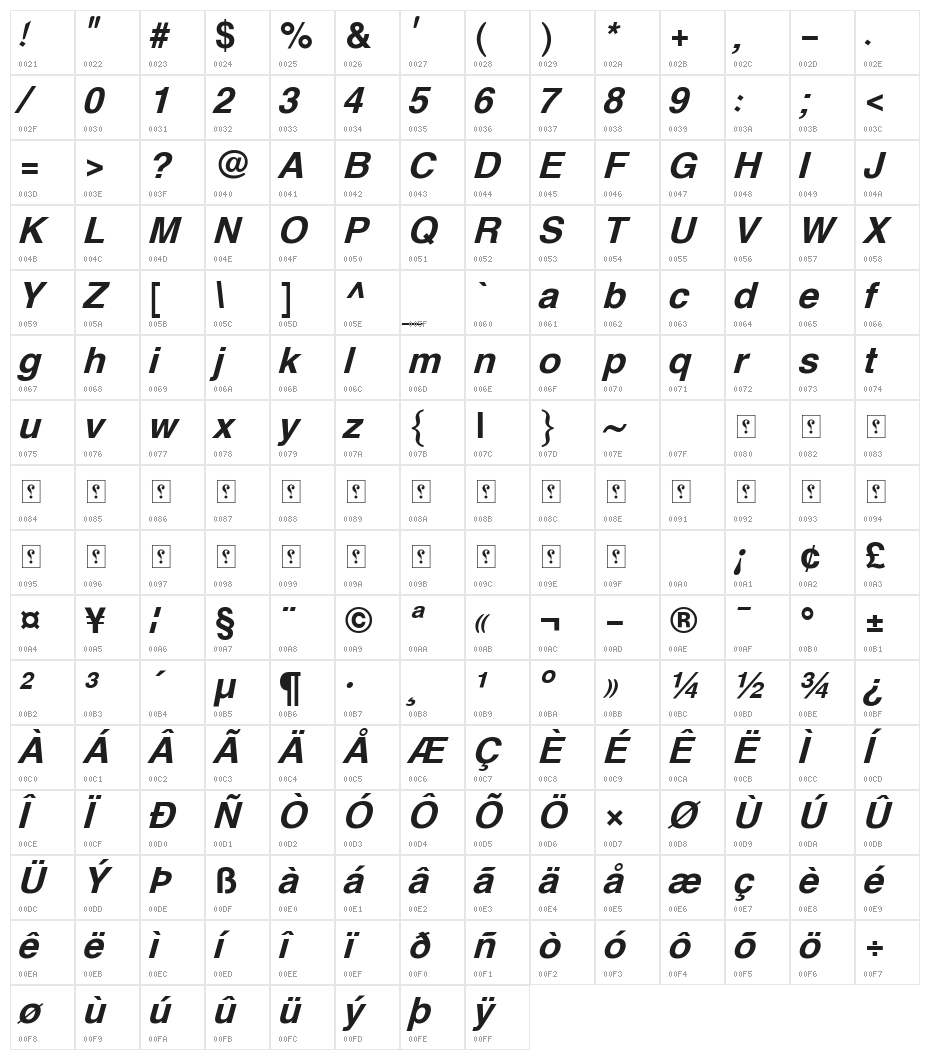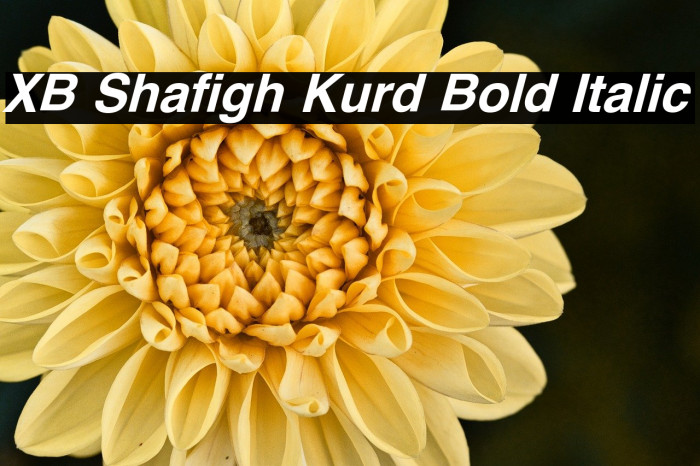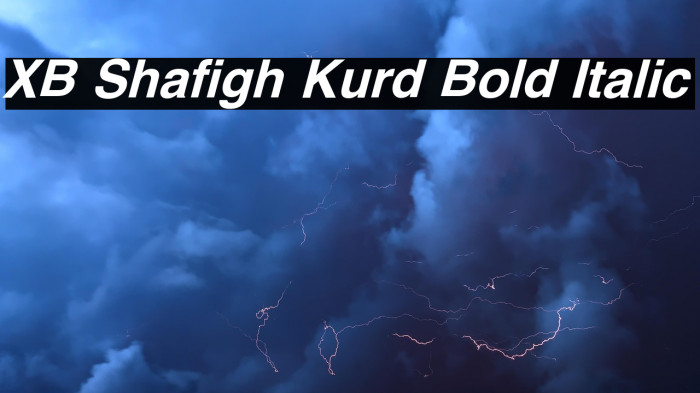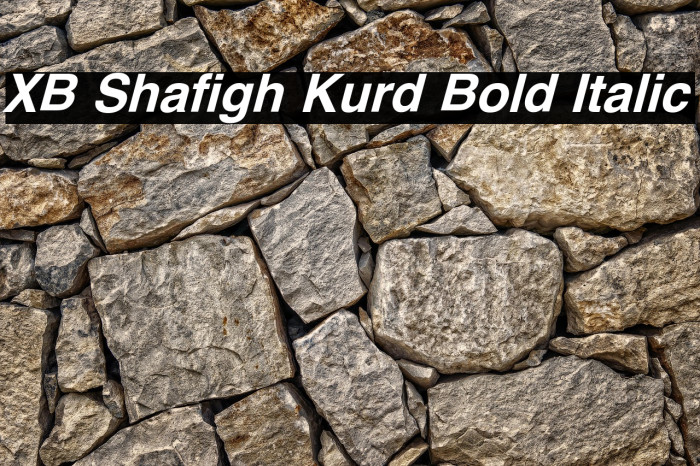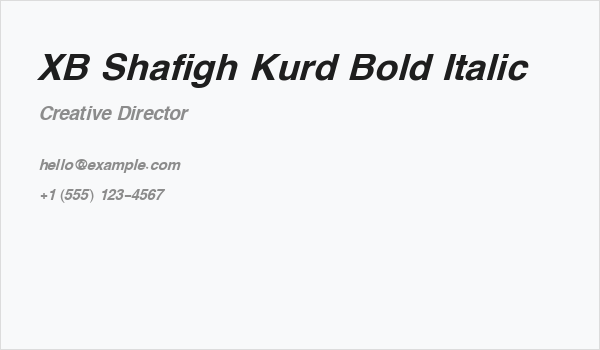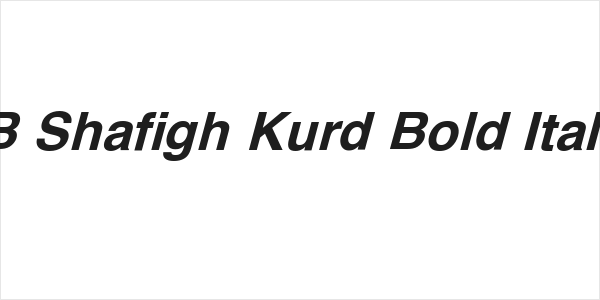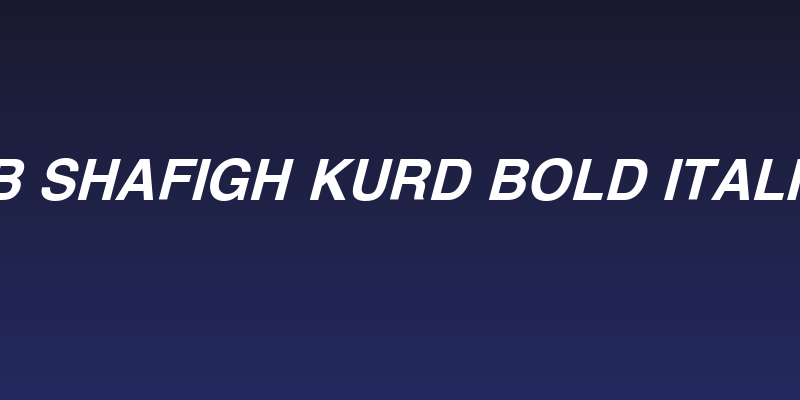
XB Shafigh Kurd Bold Italic Font
XB Shafigh Kurd Bold Italic Description
This font exhibits a bold and italicized style, characterized by its strong and assertive presence. The letters are slanted, giving a dynamic and forward-moving appearance. The strokes are thick, contributing to its boldness, while the italicization adds a sense of motion and elegance. The uppercase and lowercase letters maintain consistency in style, with smooth curves and clean lines. The numerals are equally bold, ensuring readability and uniformity across different uses. Special characters are well-defined, matching the overall aesthetic of the font.